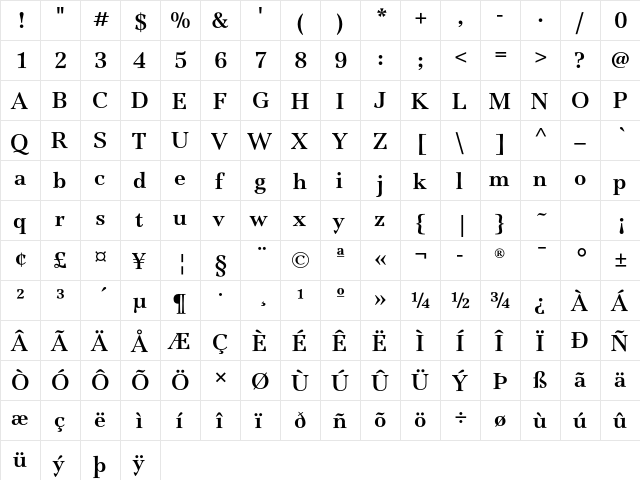
Jamille ITC Std Bold
| Designer | Mark Jamra |
Design Context for Jamille ITC Std Typeface
Jamille ITC Std offers clean, dependable letterforms without strong stylistic allegiance, making it a practical choice for designers who need flexibility. The heavy weight commands attention and anchors typographic hierarchies.